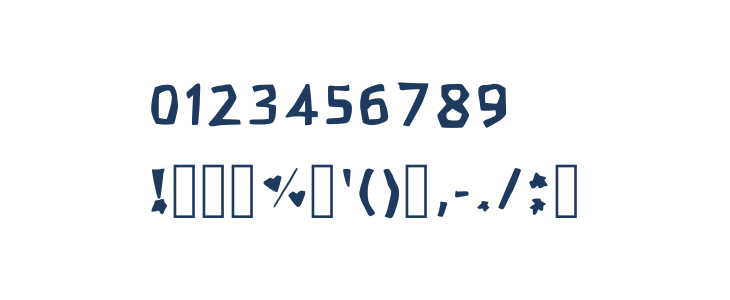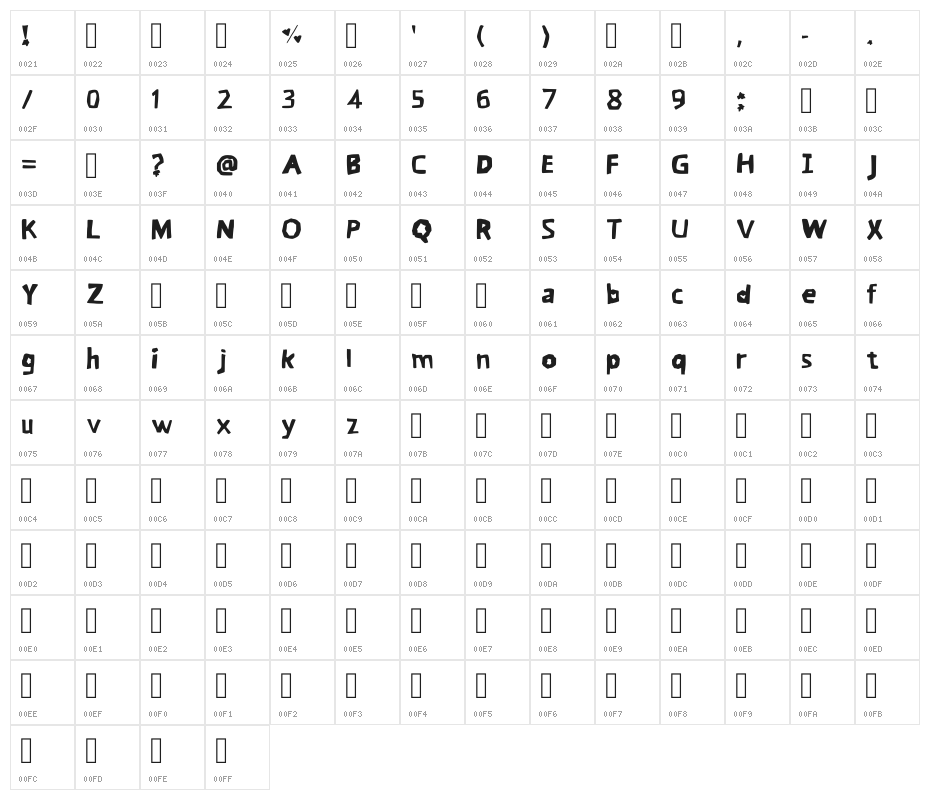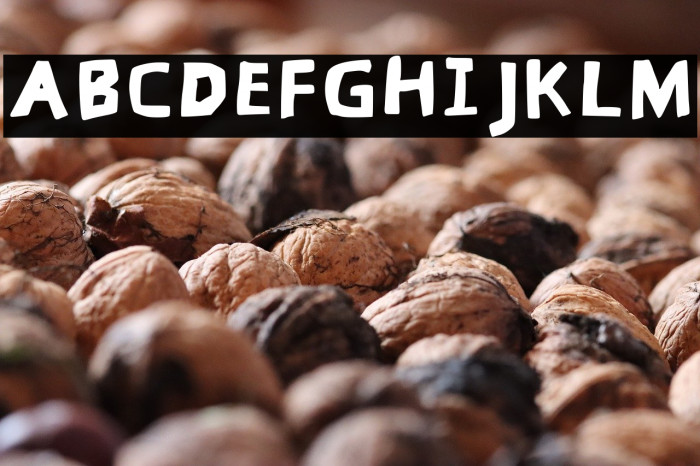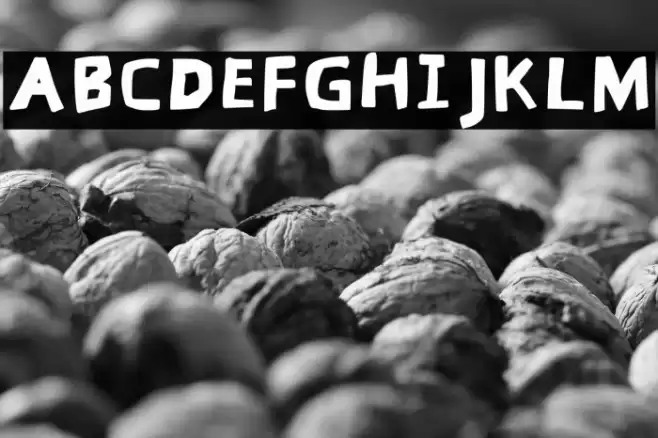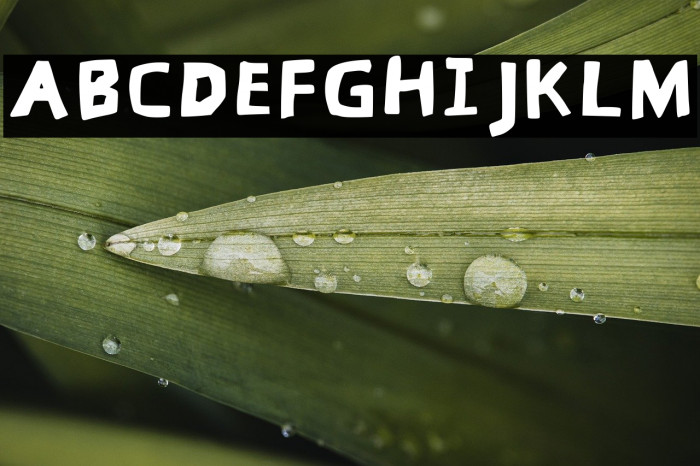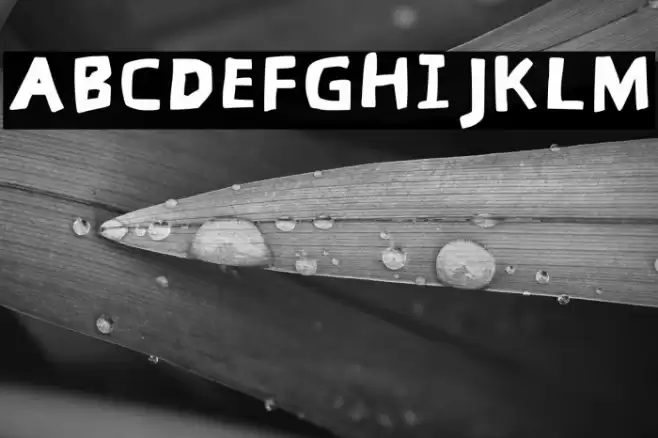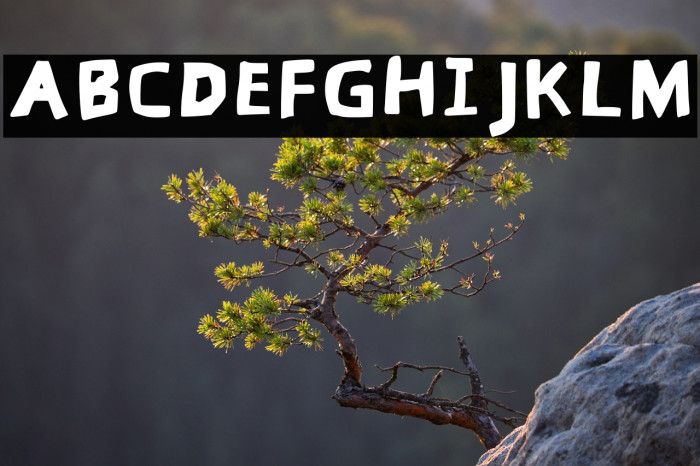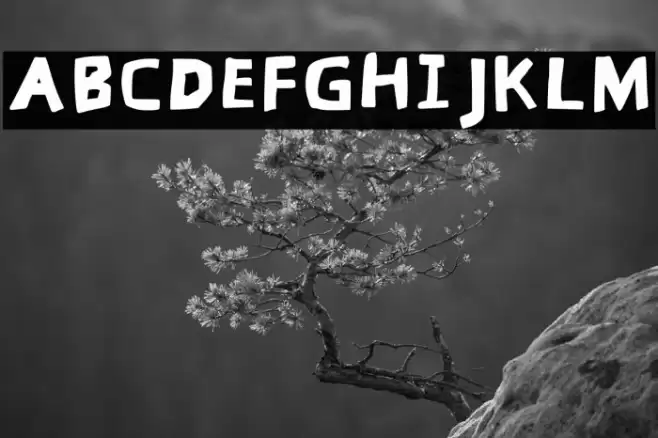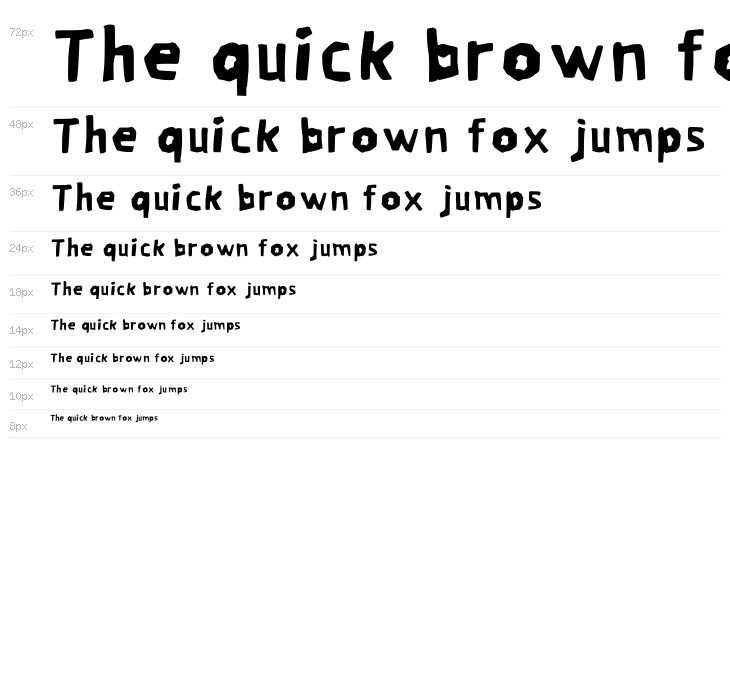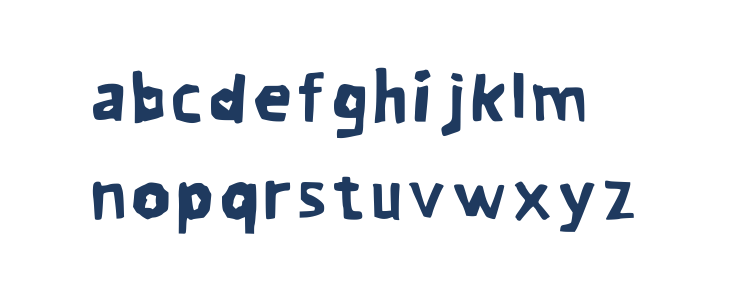
Garing Regular Font
Garing Regular Description
This font features a bold and playful design with irregular, hand-drawn characteristics. The letters have a slightly uneven baseline, giving them a dynamic and informal appearance. The strokes are thick and consistent, creating a strong visual impact. The overall style is reminiscent of a casual, artistic script, making it suitable for creative and informal projects. The numbers and special characters maintain the same playful style, ensuring consistency across all elements.
| Overall Style | Playful, Artistic |
| Proposed Projects | Ideal for children's books, creative posters, casual branding, and playful social media graphics. |